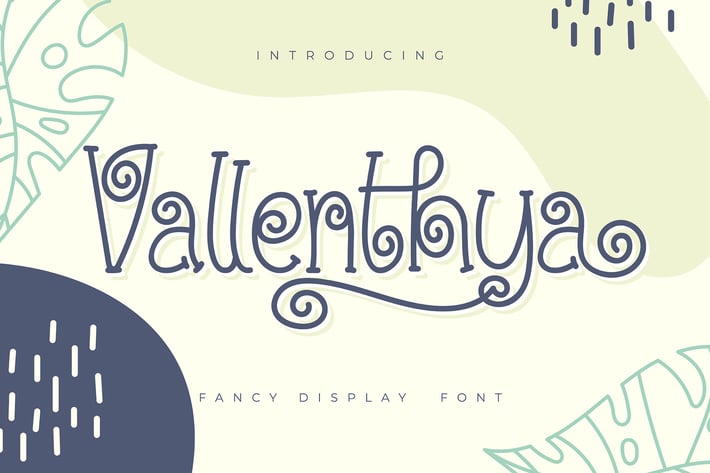
Vallenthya | Fancy Display Font
Vallenthya | Fancy Display Font with a calligraphy style, So beautiful on invitation like greeting cards, branding materials, business cards, quotes, posters, and more!